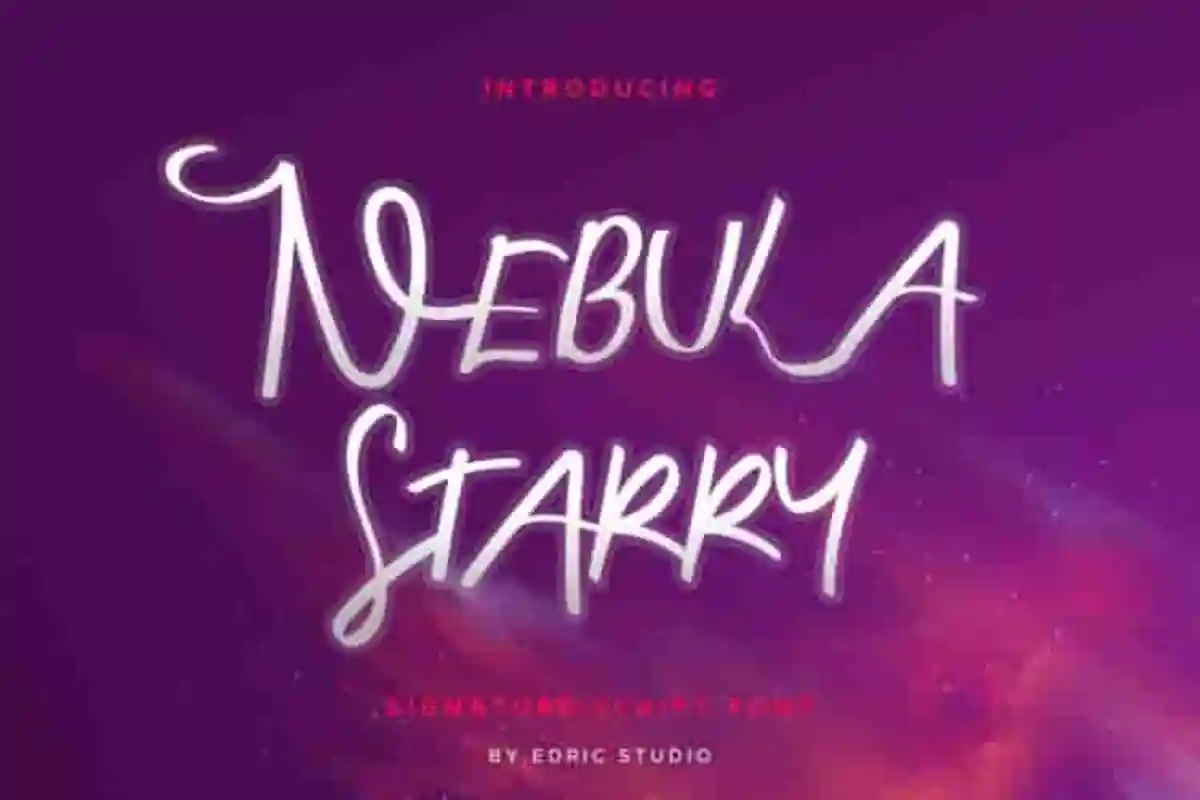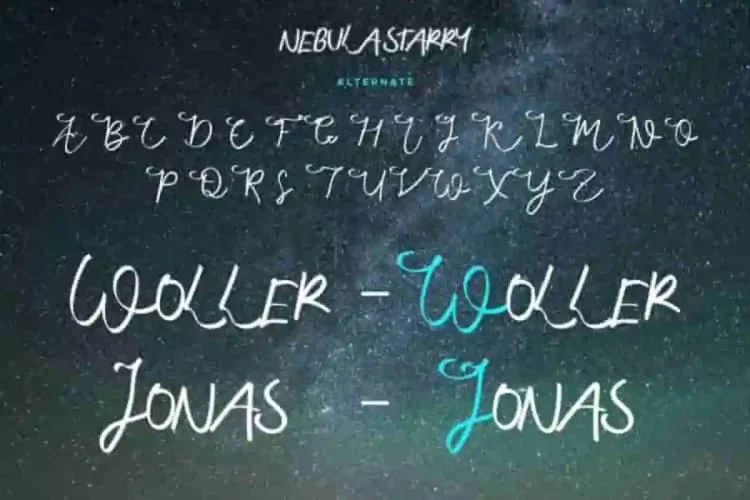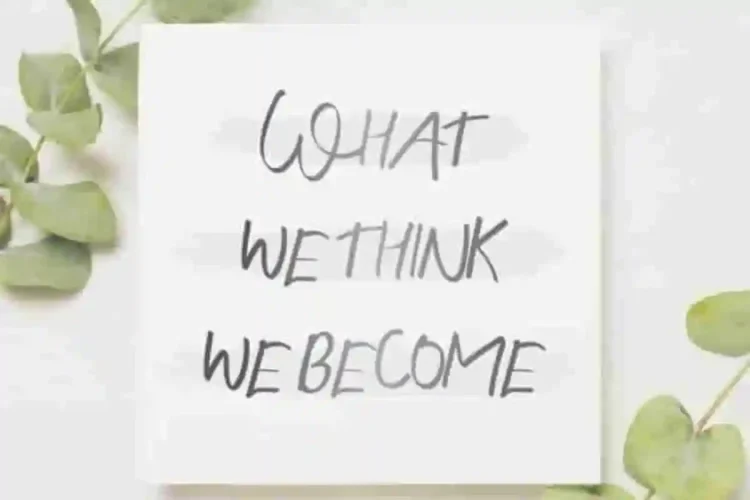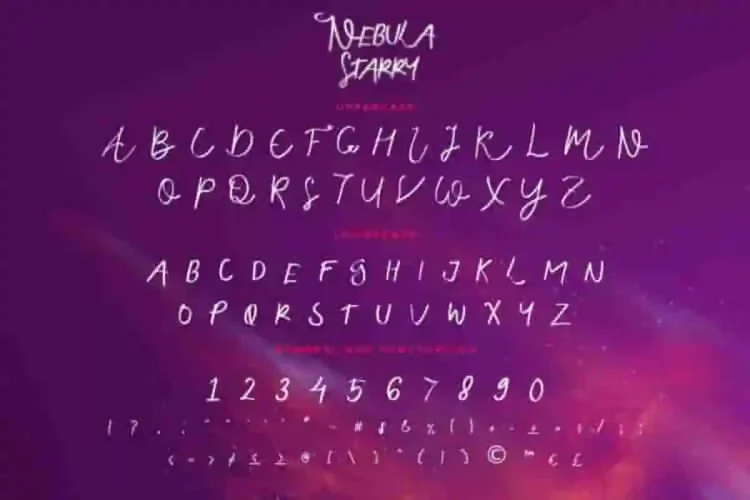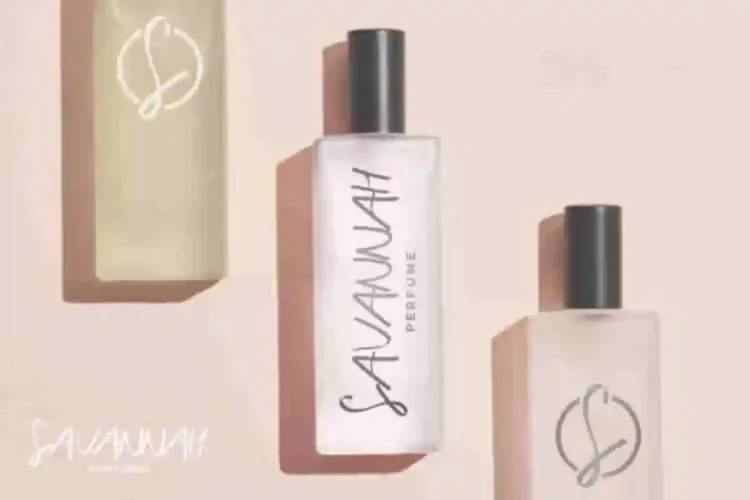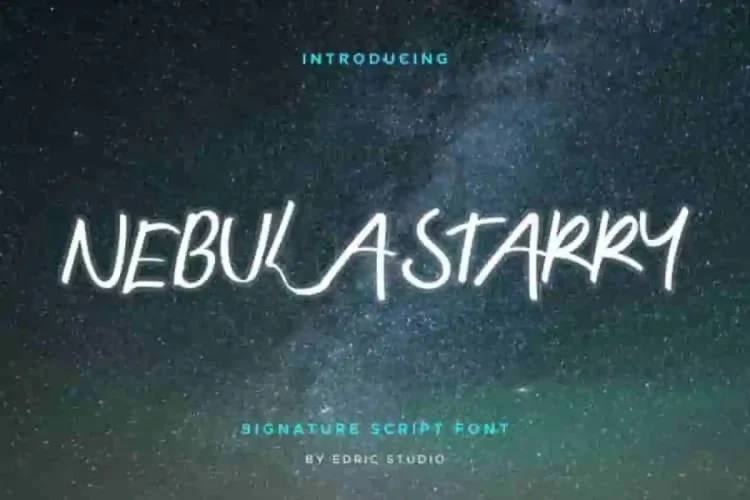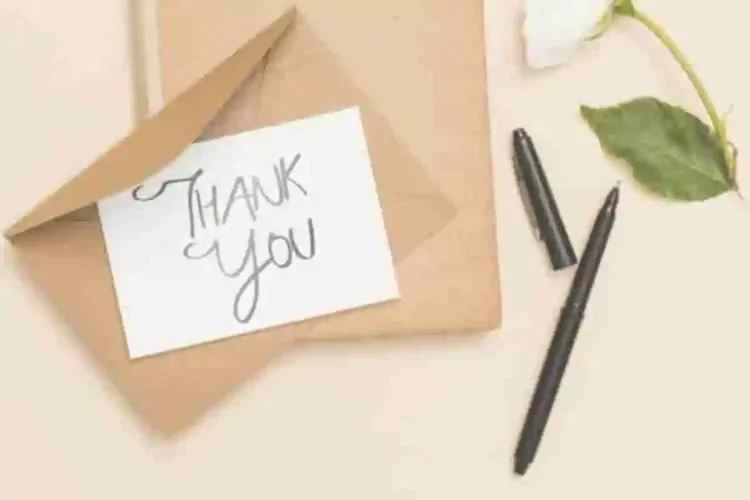
Nebula Starry Calligraphy Script Font
Nebula Starry Calligraphy Script Font is a script font, made by Yasri and Sarah Suci.
Nebula Starry Calligraphy Script Font is an exclusive callgraphy script typeface with light simple brush style. This font has a stunning characters set, perfectly managed with well spaced and kerning. The theme style of this font will natural, bare hand, naked, vintage, feminine and classic brush script style.
Nebula Starry Calligraphy Script Font will be great for any projects including : branding, logo, stationery, business card, signage, flyer, brochure etc. Almost all industries will be match for this typeface: wedding, events, real estate, architect, law firm, florist, gardening, makeup artist, travel, hotel, musician etc.